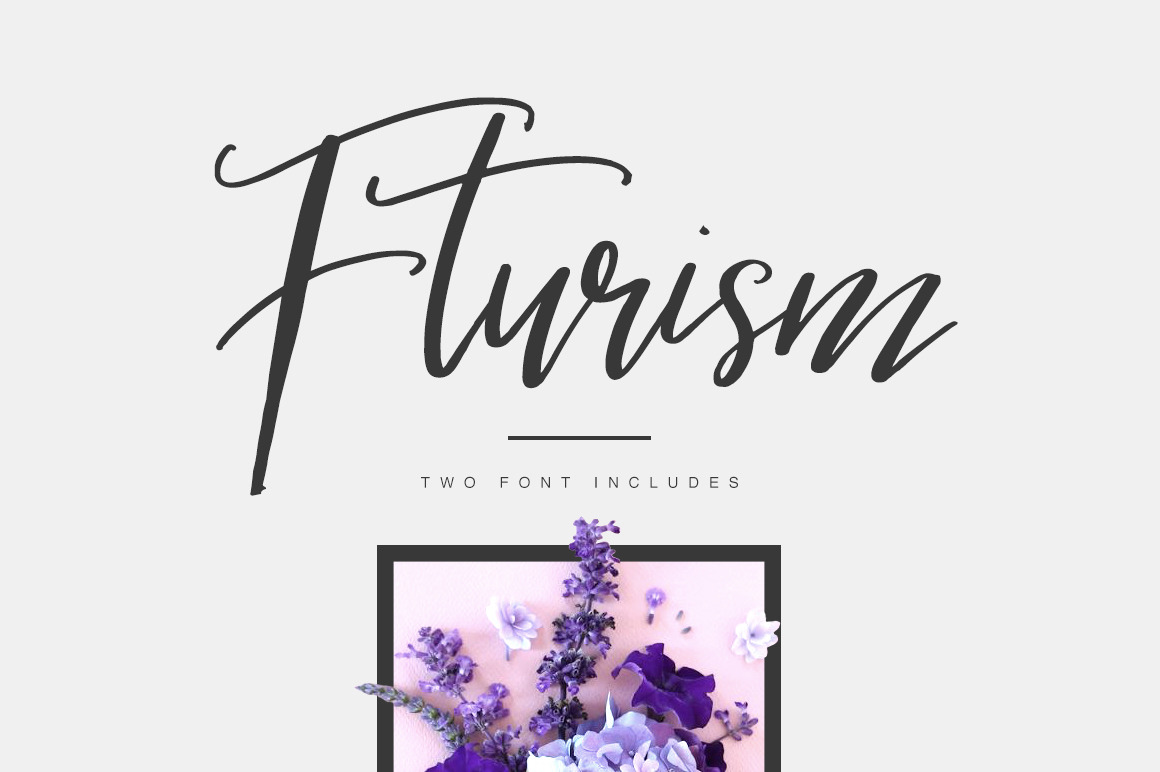
Fturism Brush Script Sans Font
Give your designs an authentic handcrafted feel. “Fturism Typeface” is perfectly suited to stationery, logos and much more.